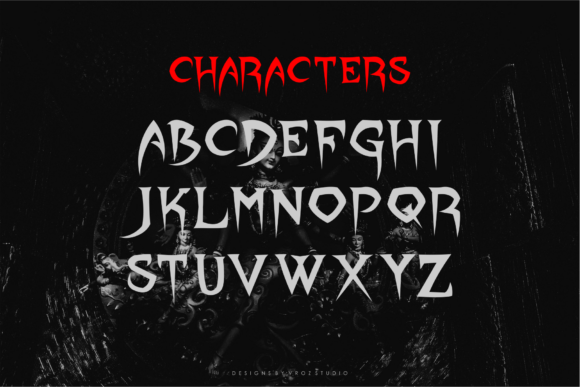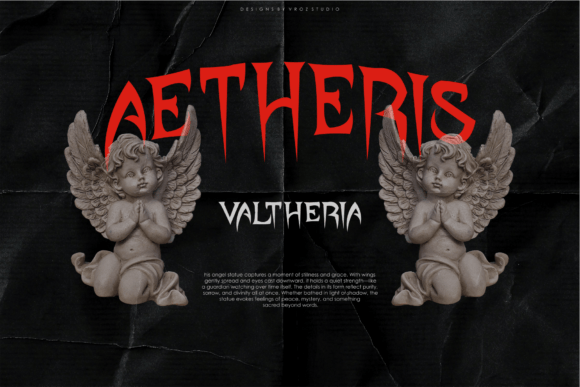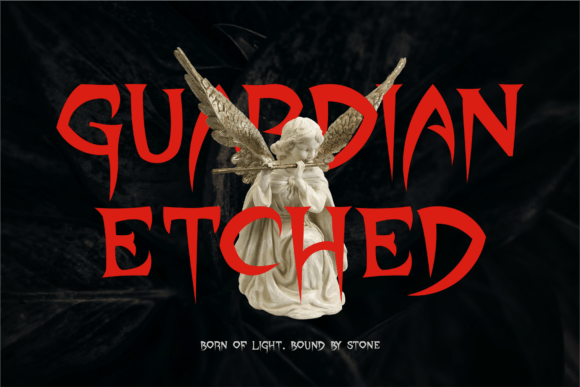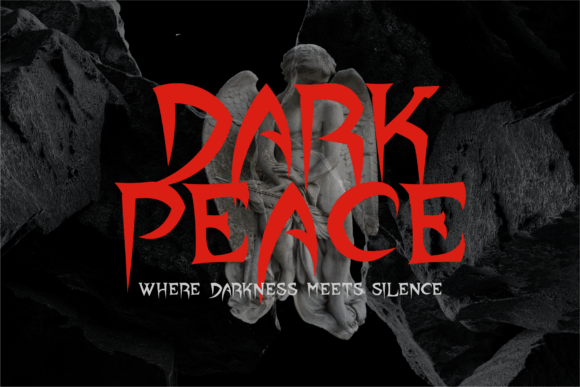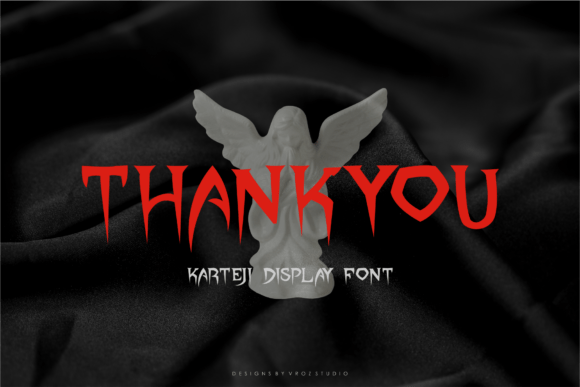
Introduction to Karteji Font
Introducing KARTEJI – A Bold and Authoritative Metal Blackletter Typeface KARTEJI is a bold and authoritative font designed to make a statement.
Inspired by blackletter tradition and infused with a metallic edge, this typeface combines intricate historical roots with a raw, modern attitude Its sharp lines, dramatic strokes, and vintage charm make it perfect for projects that need to stand out with strength and style.
Key Features of Karteji Font